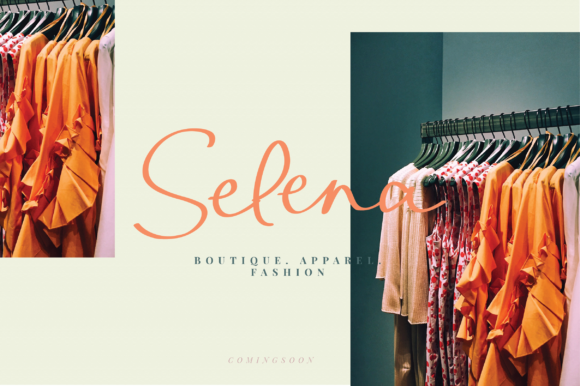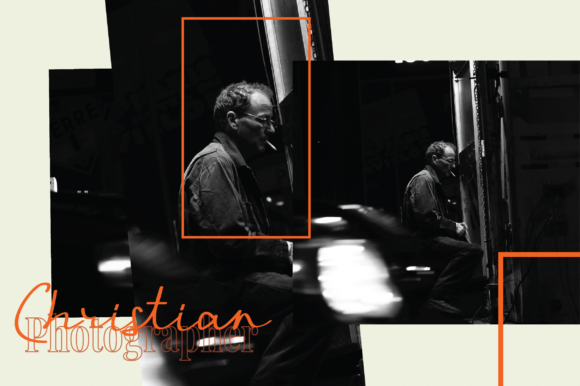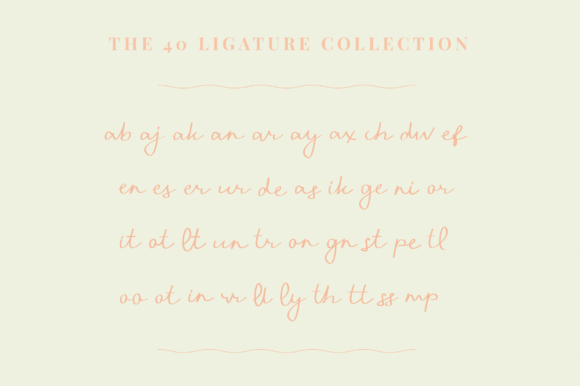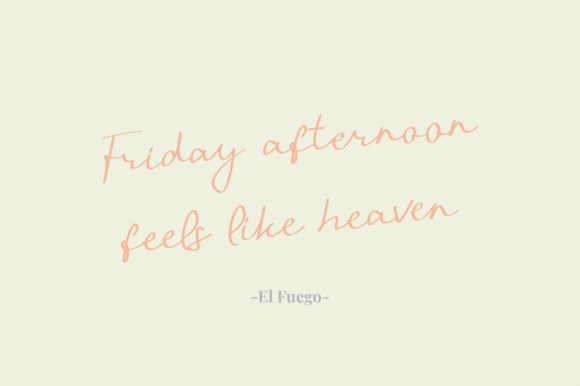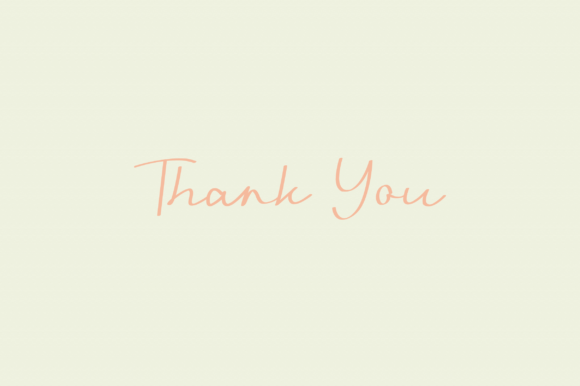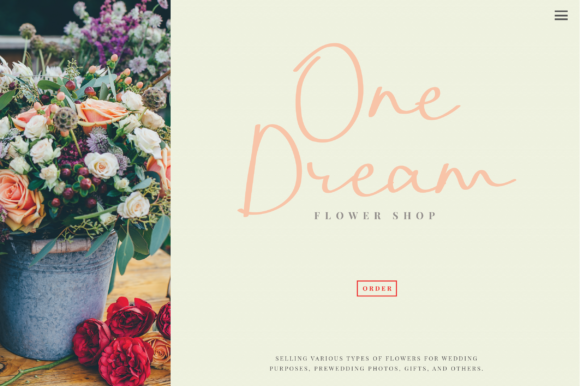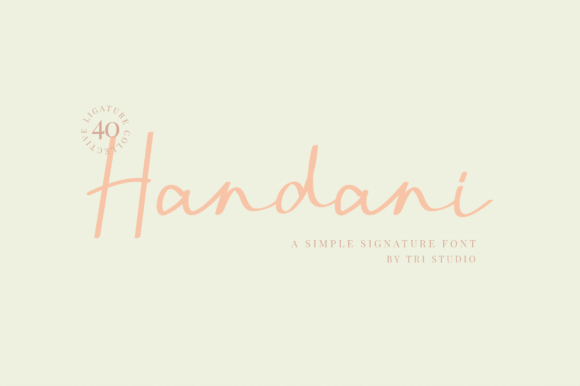
Introducing Handani Font: The Ultimate Choice for Summer and Spring Designs
Are you a designer or crafter looking for a font that can add a touch of warmth and authenticity to your summer or spring-themed designs? Look no further than Handani Font! This cool and casual handwritten font is designed to bring an incredibly authentic vibe to your projects, making it perfect for a wide range of creative applications.
What Makes Handani Font So Special?
Handani Font is a unique and charming font that is sure to capture the essence of your designs. Its casual and handwritten style gives it a personal touch that is hard to replicate with other fonts. The font’s authentic vibe makes it perfect for designs that require a human touch, such as:
• Summer and spring-themed designs, such as posters, flyers, and social media graphics
• Handmade or craft-related projects, such as labels, packaging, and tutorials
• Personal or creative blogs, where a touch of personality is essential
The Dreamy Touch of Handani Font
One of the standout features of Handani Font is its ability to add a dreamy touch to any design. The font’s casual and handwritten style gives it a soft, romantic feel that is perfect for evoking the feeling of a warm summer breeze or a sunny spring day. Whether you’re designing a poster, a flyer, or a social media graphic, Handani Font is sure to bring a touch of magic to your project.
Key Features of Handani Font
Here are some of the key features that make Handani Font a must-have for designers and crafters:
• Authentic and handmade feel: Handani Font has a unique, handwritten style that gives it a personal touch
• Casual and relaxed vibe: Perfect for summer and spring-themed designs, or any project that requires a laid-back feel
• Easy to read: Despite its casual style, Handani Font is easy to read and understand, making it perfect for body text or headlines
• Versatile: Handani Font can be used for a wide range of creative applications, from posters and flyers to social media graphics and blogs
How to Use Handani Font in Your Designs
Using Handani Font in your designs is easy! Here are a few tips to get you started:
• Pair it with other fonts: Handani Font pairs well with other fonts, such as sans-serif fonts or script fonts. Experiment with different combinations to find the perfect look for your design
• Use it for headlines or body text: Handani Font is easy to read, making it perfect for body text or headlines. Use it to add a touch of personality to your design
• Add some texture or patterns: To give your design an extra boost, try adding some texture or patterns to your Handani Font text. This will help to create a more dynamic and interesting design
In conclusion, Handani Font is a cool and casual handwritten font that is perfect for summer and spring-themed designs. Its authentic and handmade feel, combined with its easy-to-read style, make it a must-have for designers and crafters. Whether you’re creating a poster, a flyer, or a social media graphic, Handani Font is sure to bring a touch of magic to your project. So why wait? Download Handani Font today and start creating your own unique designs!